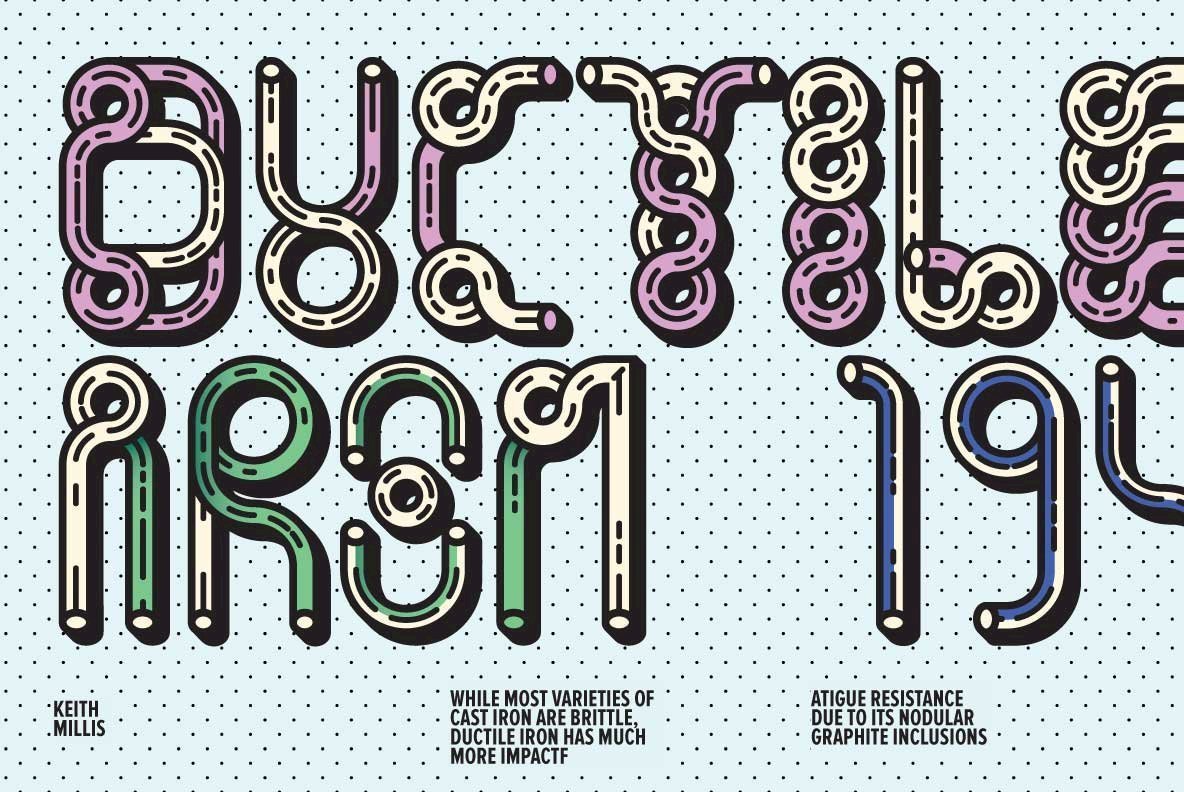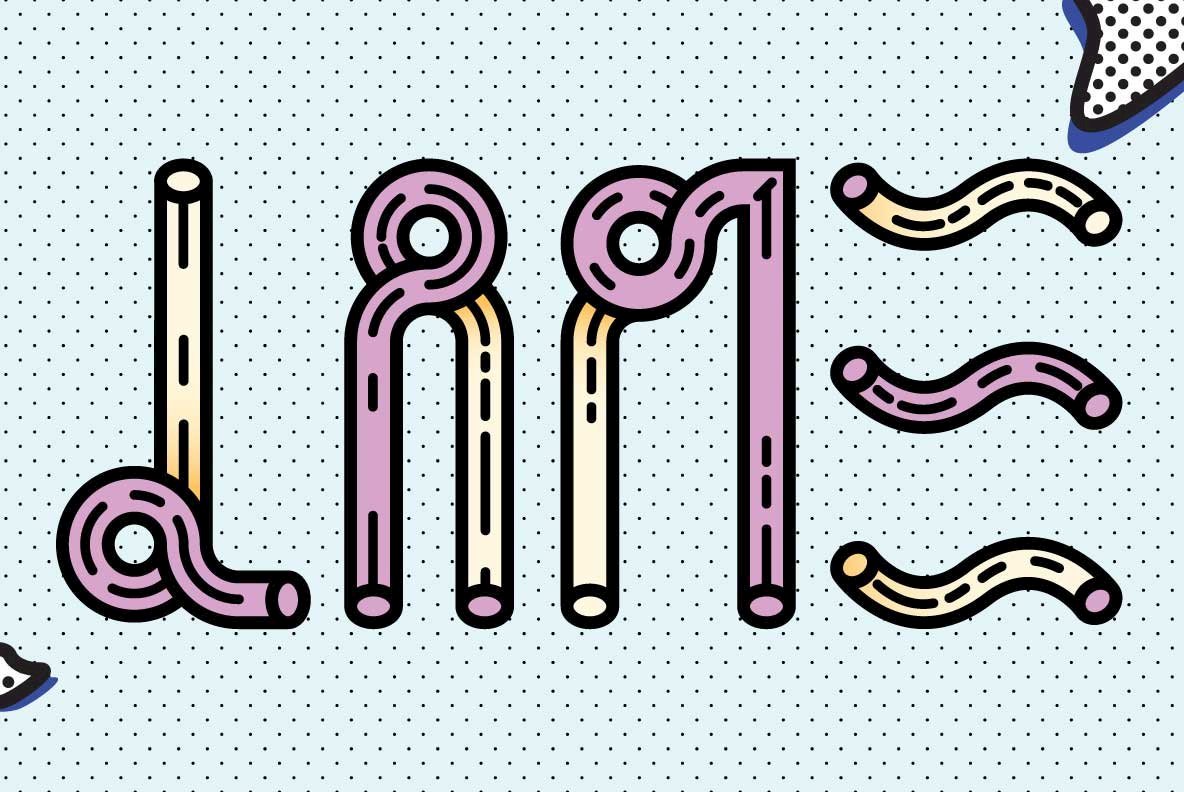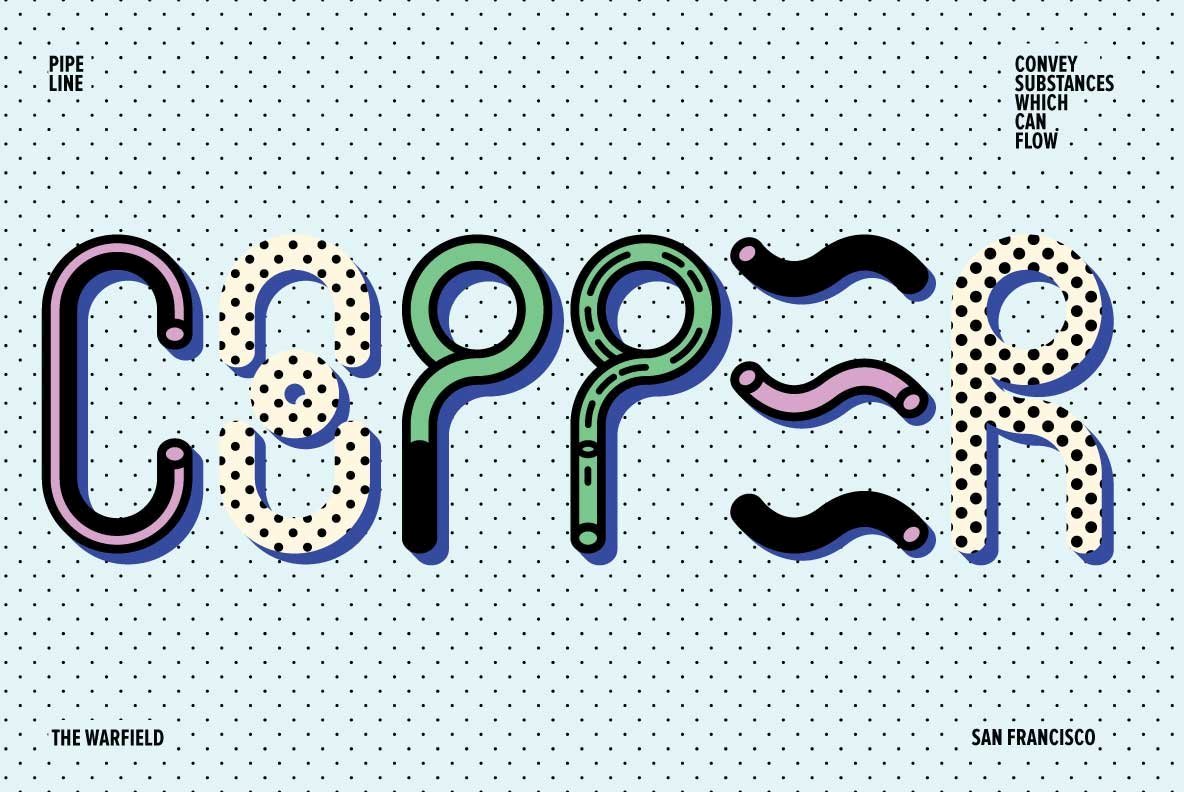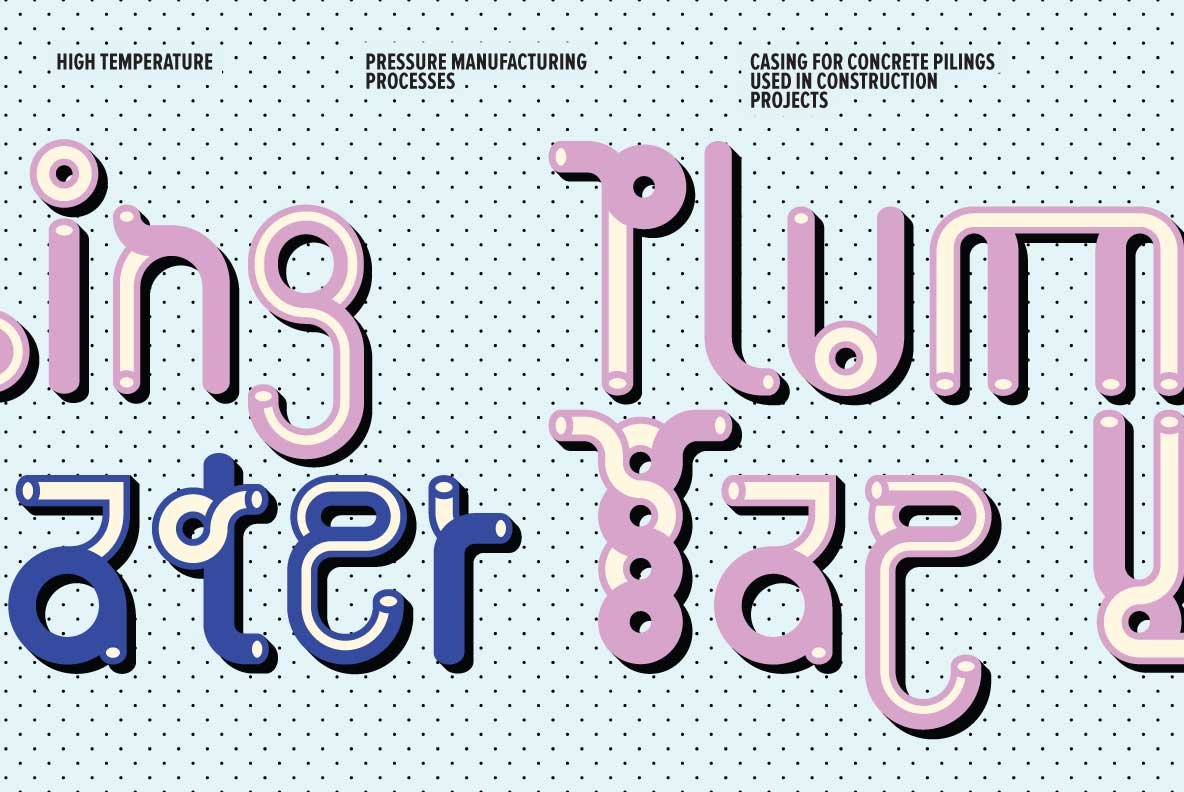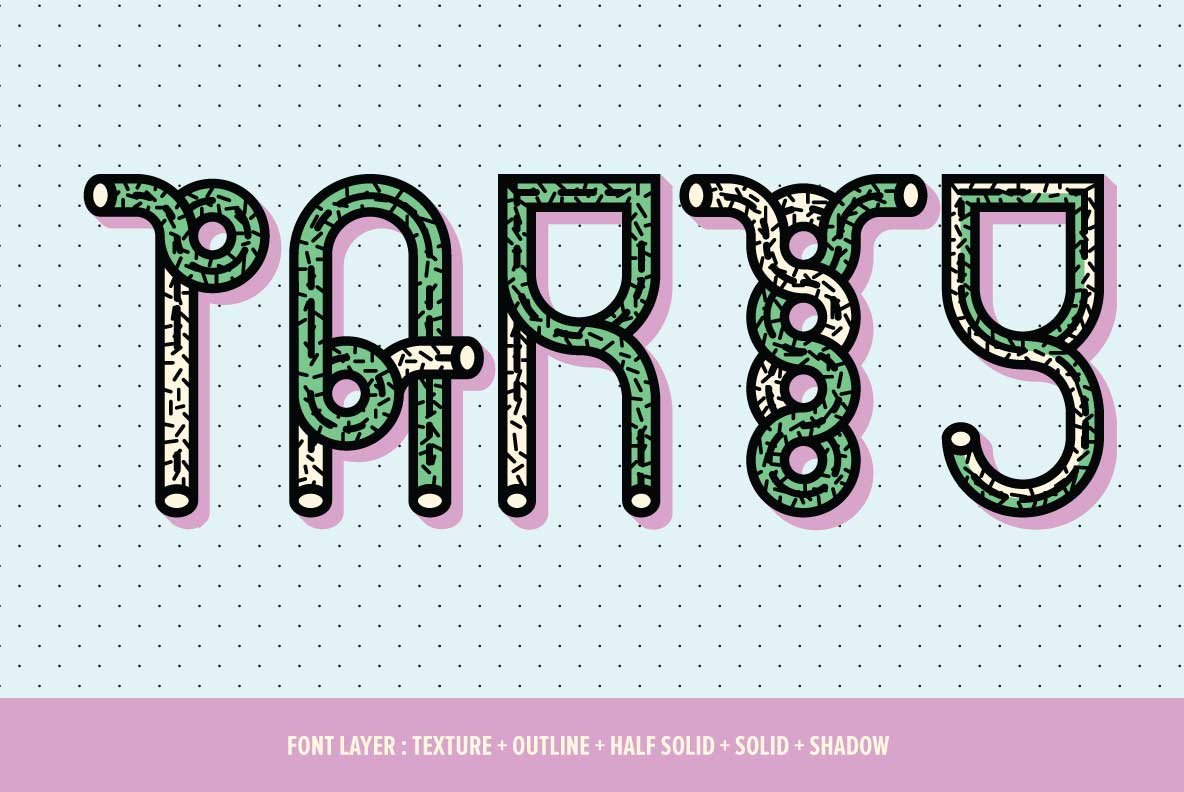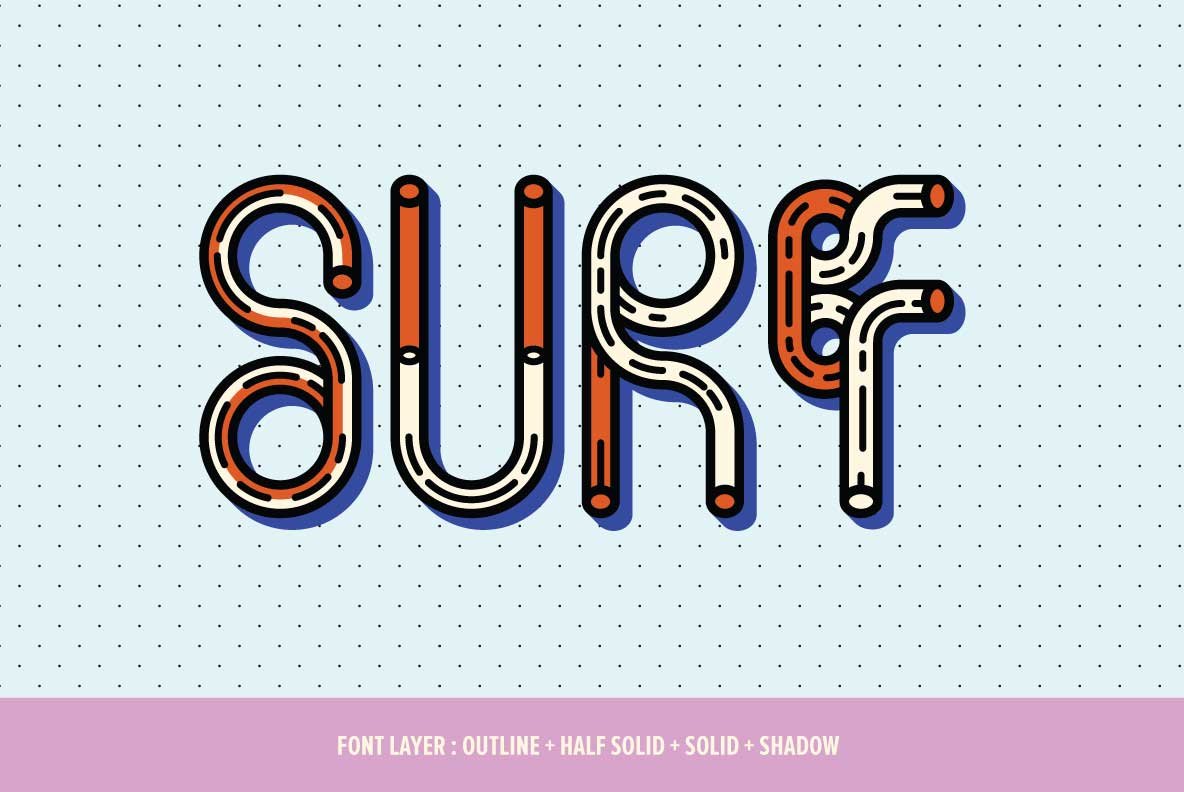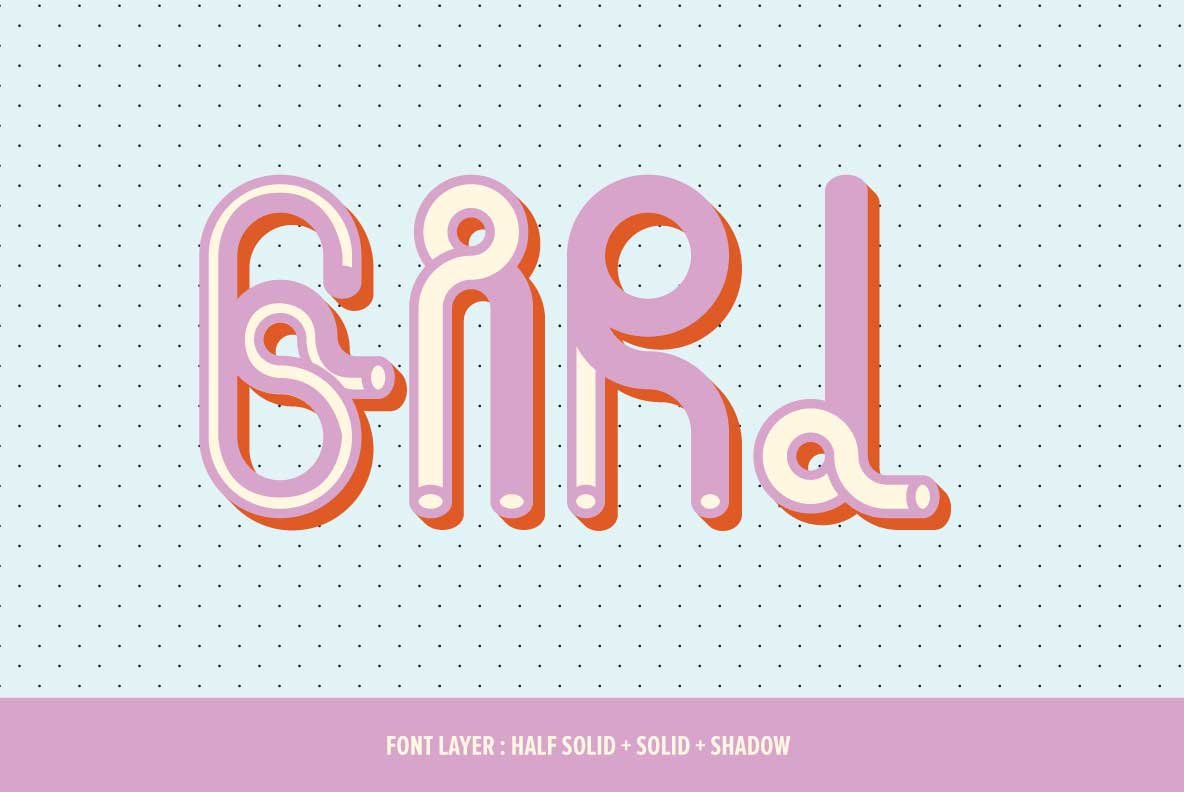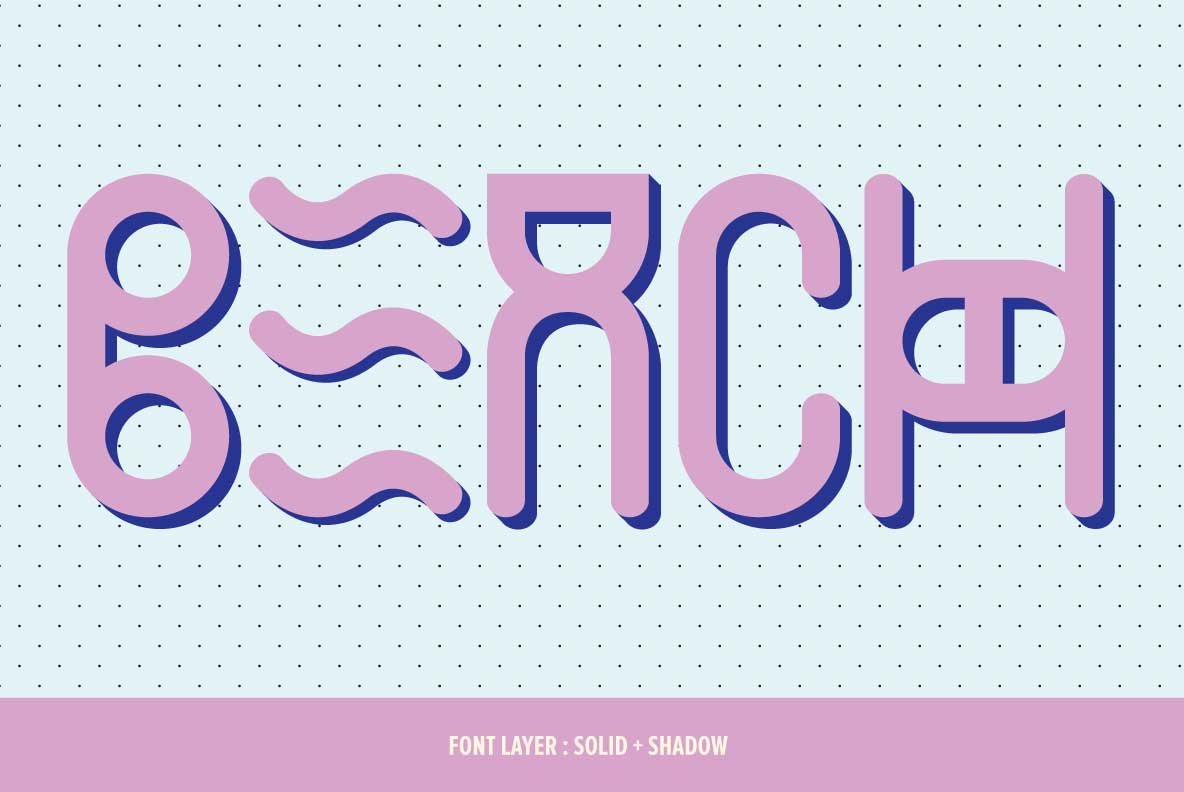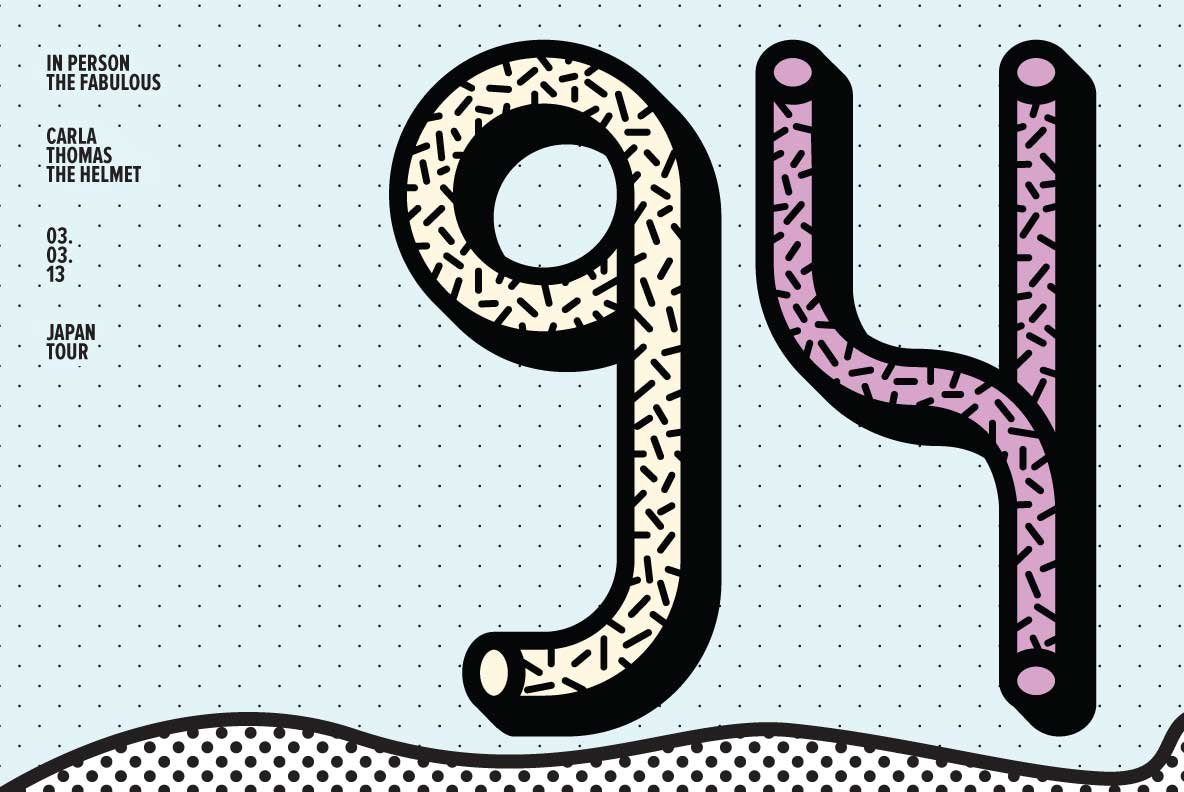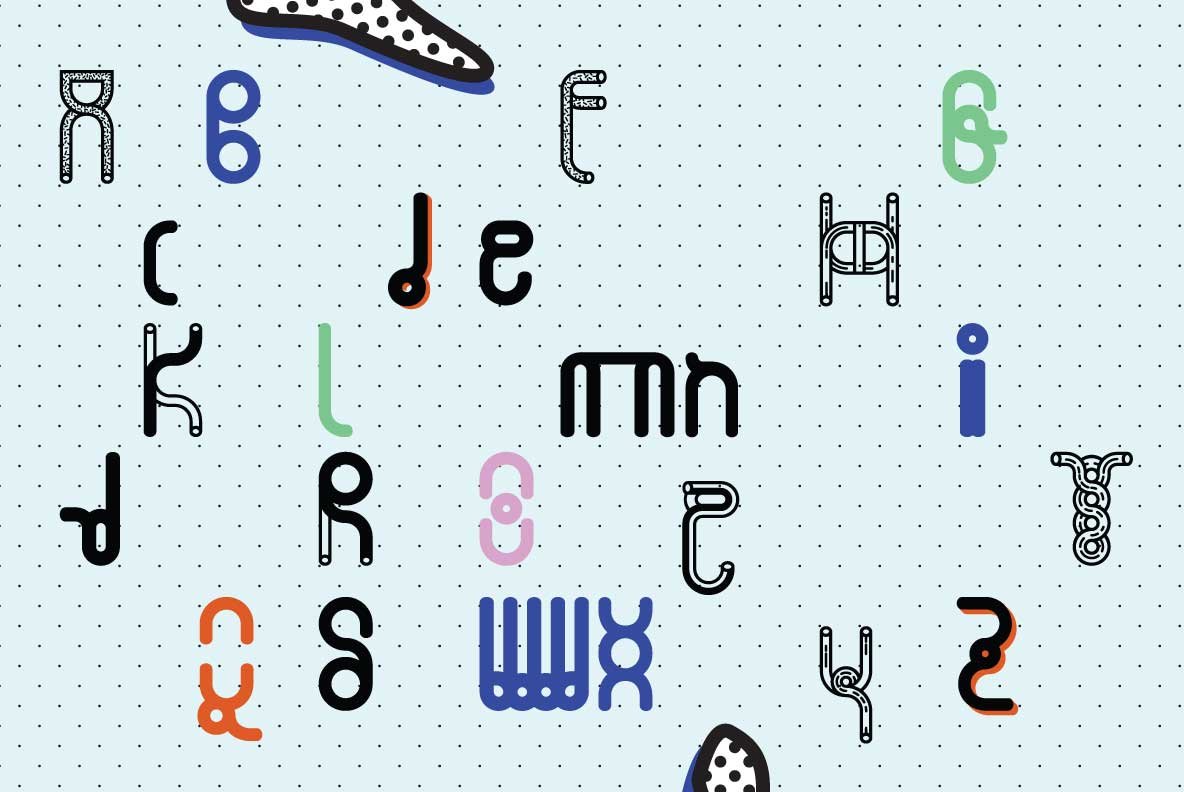
YWFT Pipe Font
Starting out as a set of vectors, this series of tubes is now the Pipe you'll want to share with your friends. This cylindrical monster has FIVE, count 'em, FIVE tubular styles for users to layer: solid, shadow, outline, half-solid and texture (dots). Seriously, there's so many design options at stake here, it's as if Max Headroom's debutante ball went haywire in the sewers, and now Mario & Luigi have to work overtime to save everyone. Let'sa go!
Designed by Tanawat Sakdawisarak and YouWorkForThem.